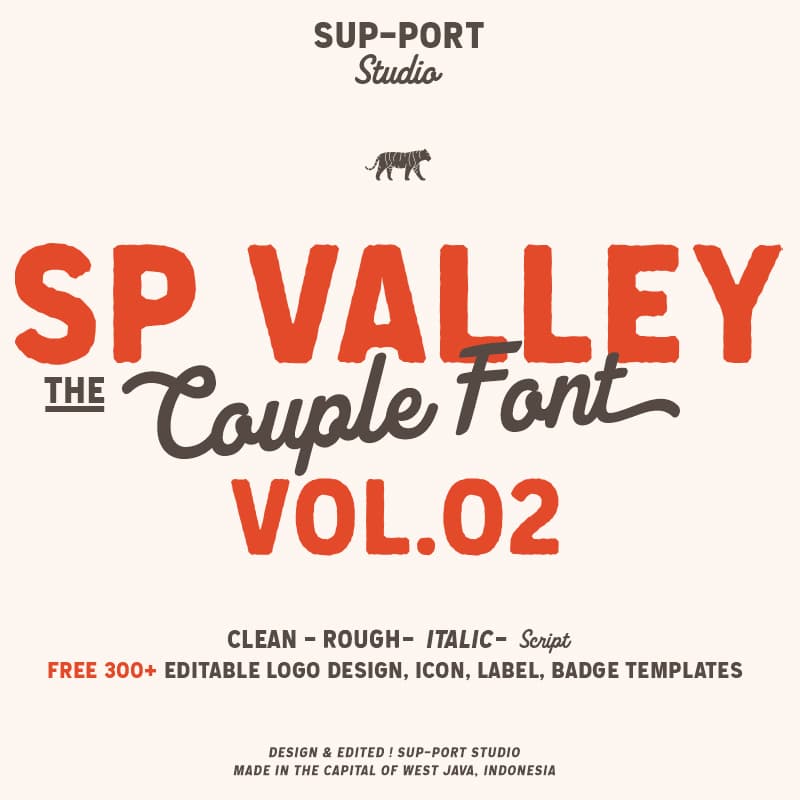
<p>SP Valley Couple Font is a bundle of couple font (sans and script) and graphic design templates + badge packages with a dynamic style, following the current trends, can include a modern vintage look, elegant look, and clean.<br><br>These bundle would be perfect to combine in your design. Typeface coming with opentype feature like ligature and ordinal, as well as multi-lingual support, currency figures, numerals, punctuation, arrow.<br><br>Suitable for logo, t-shirt, print, business cards, branding materials, nature photography, etc, made with carefully crafted.<br><br>Bonus : set of 100+ Icons, perfect to matching for your works.<br><br>File Includes :<br><br>OTF / TTF / WEBFONT<br><br>- SP VALLEY Regular<br>- SP VALLEY Italic<br>- SP VALLEY Rough<br>- SP VALLEY Script<br>- Logo Templates ( text can be changed )<br>- Set of 110 Ribbon & Badges ( editable stroke )<br>- (+) Bonus Set of 100+<br><br>Opentype Features :<br><br>- Ligatures<br>- Ordinals<br>- Stylistic Set</p>